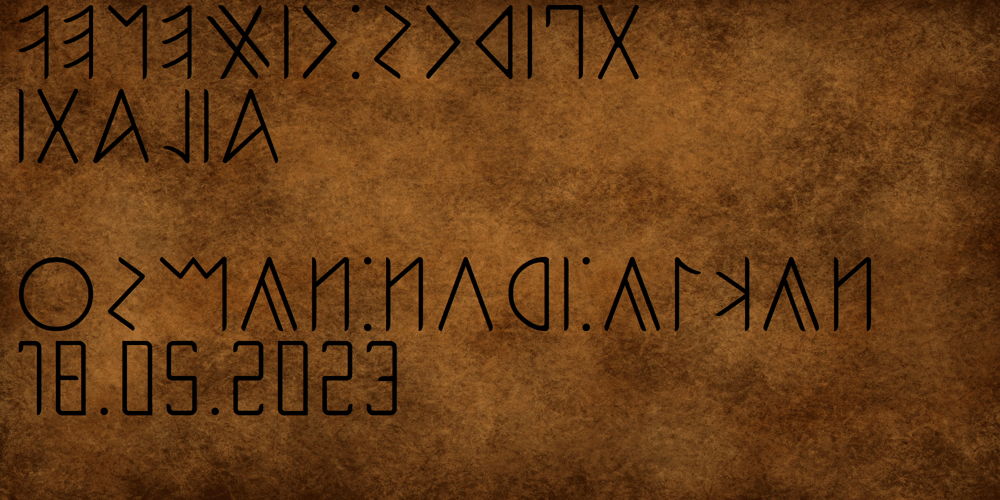
Ongunkan Venetic Script Font Family was designed by Osman Nuri ALKAN and published by Runic World Tamgacı. Ongunkan Venetic Script contains 1 styles and family package options. Venetic is an extinct Indo-European language, usually classified into the Italic subgroup, that was spoken by the Veneti people in ancient times in northeast Italy (Veneto and Friuli) and part of modern Slovenia, between the Po Delta and the southern fringe of the Alps, associated with the Este culture.[3][1][4]The language is attested by over 300 short inscriptions dating from the 6th to the 1st century BCE. Its speakers are identified with the ancient people called Veneti by the Romans and Enetoi by the Greeks. It became extinct around the 1st century when the local inhabitants assimilated into the Roman sphere. Inscriptions dedicating offerings to Reitia are one of the chief sources of knowledge of the Venetic language